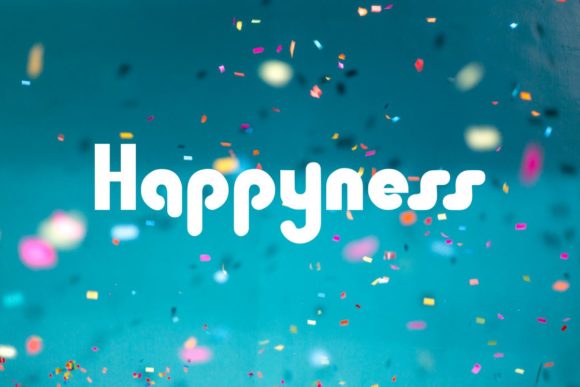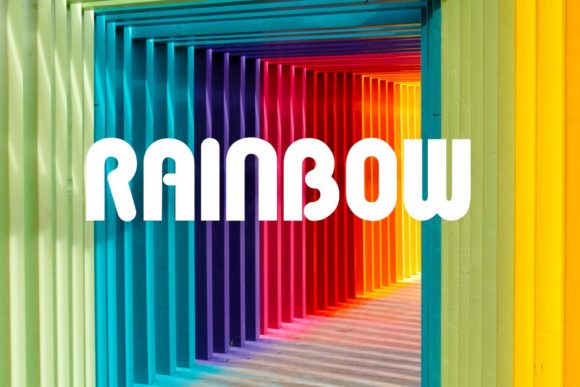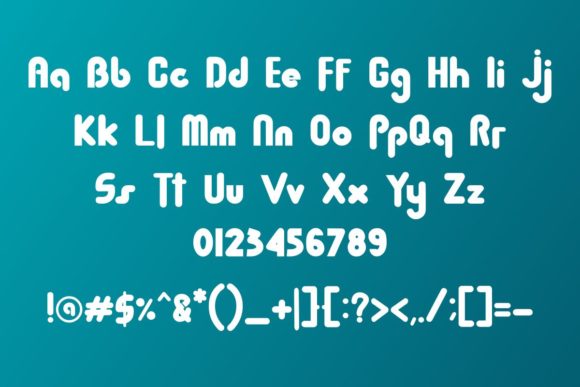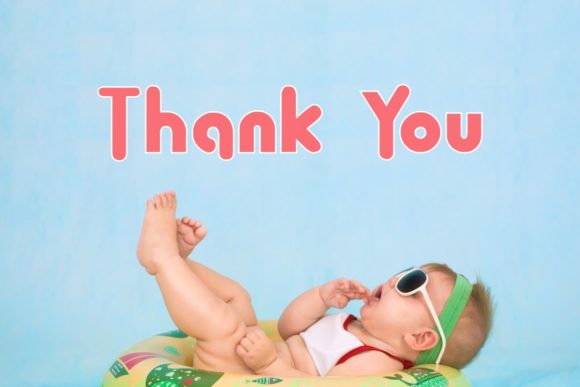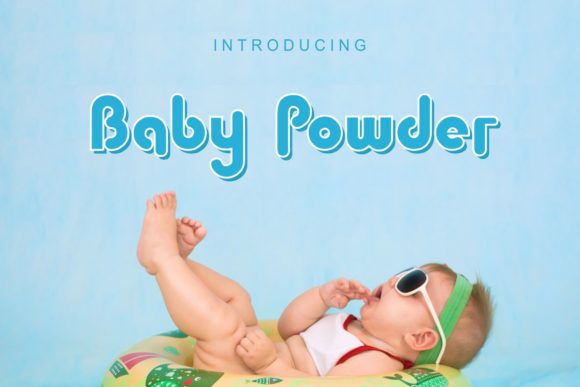
Baby Powder Font: The Sweetest Addition to Your Design Projects
Baby Powder is a delightful and charming display font that’s sure to bring a touch of joy and whimsy to your creative projects. This adorable font is perfect for designers and crafters looking to add a personal and playful touch to their work. In this article, we’ll dive into the world of Baby Powder Font and explore its features, uses, and benefits.
What is Baby Powder Font?
Baby Powder Font is a type of display font designed to resemble the soft, gentle texture of baby powder. Its sweet and innocent appearance makes it an ideal choice for projects that require a playful and youthful vibe. The font’s rounded edges and smooth curves evoke a sense of warmth and friendliness, making it perfect for designs that need to convey a sense of approachability and charm.
Key Features of Baby Powder Font
- Cute and Joyful Design: Baby Powder Font boasts a delightful design that’s sure to put a smile on your face. Its playful appearance makes it perfect for projects that require a touch of whimsy and fun.
- Highly Readable: Despite its playful design, Baby Powder Font is highly readable, even at smaller font sizes. This makes it an excellent choice for designs that require a balance of style and substance.
- Versatile: Baby Powder Font can be used for a wide range of design projects, from digital graphics to print materials. Its versatility makes it an excellent addition to any designer’s toolkit.
- Easily Customizable: Baby Powder Font can be easily customized to fit your design needs. You can adjust the font size, color, and style to match your project’s unique requirements.
Uses of Baby Powder Font
Baby Powder Font is an incredibly versatile font that can be used for a wide range of design projects, including:
- Digital Graphics: Use Baby Powder Font to create adorable social media graphics, blog headers, and digital invitations.
- Print Materials: Add a touch of whimsy to your print materials, such as brochures, flyers, and business cards.
- Crafting Projects: Baby Powder Font is perfect for crafters who love to create handmade cards, scrapbook pages, and other paper crafts.
- Branding and Packaging: Use Baby Powder Font to create cute and eye-catching branding and packaging designs for your products.
Benefits of Using Baby Powder Font
Using Baby Powder Font in your design projects offers several benefits, including:
- Unique and Eye-Catching Designs: Baby Powder Font helps you create unique and eye-catching designs that stand out from the crowd.
- Emotional Connection: The font’s playful and innocent design helps create an emotional connection with your audience, making your designs more relatable and engaging.
- Time-Saving: Baby Powder Font saves you time and effort in designing and crafting your projects. Its ready-to-use design eliminates the need to create custom fonts from scratch.
| Font Name | Baby Powder Font |
| Author | Pidco.art |
Baby Powder Font is a delightful and versatile font that’s perfect for designers and crafters looking to add a touch of whimsy and playfulness to their projects. Its cute and joyful design, high readability, and ease of customization make it an excellent choice for a wide range of design projects. Whether you’re creating digital graphics, print materials, or crafting projects, Baby Powder Font is sure to bring a smile to your face and make your designs stand out!